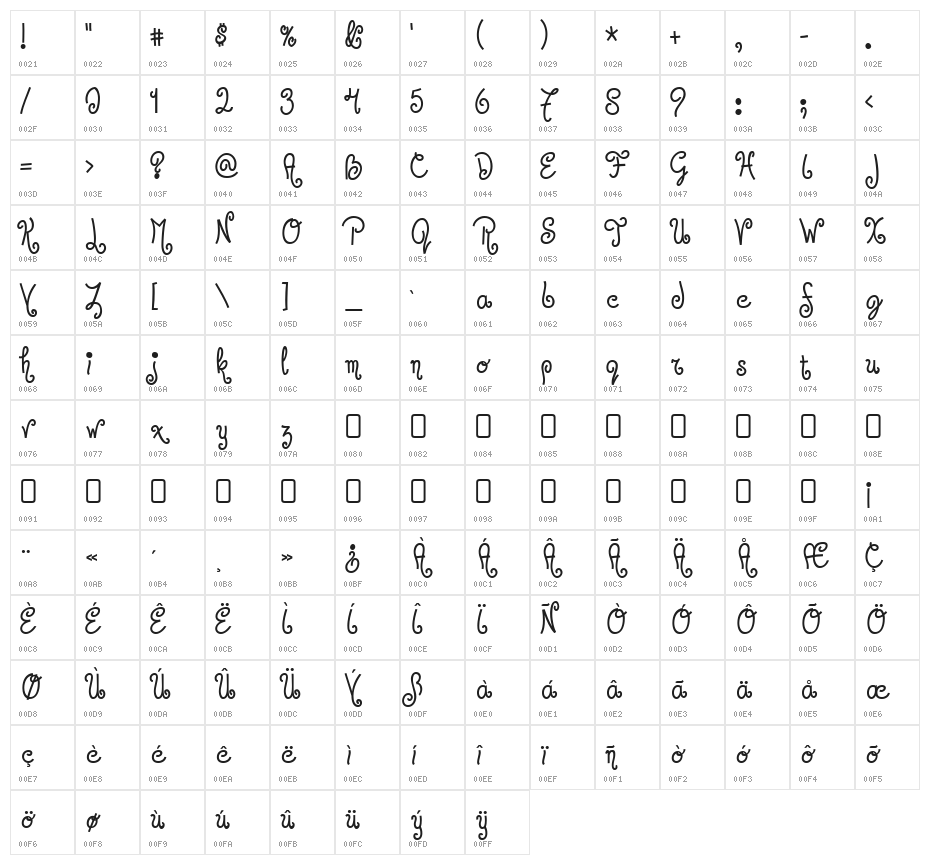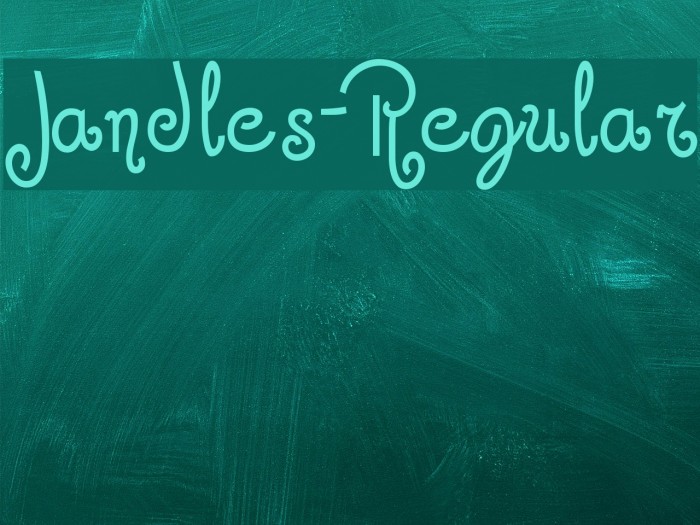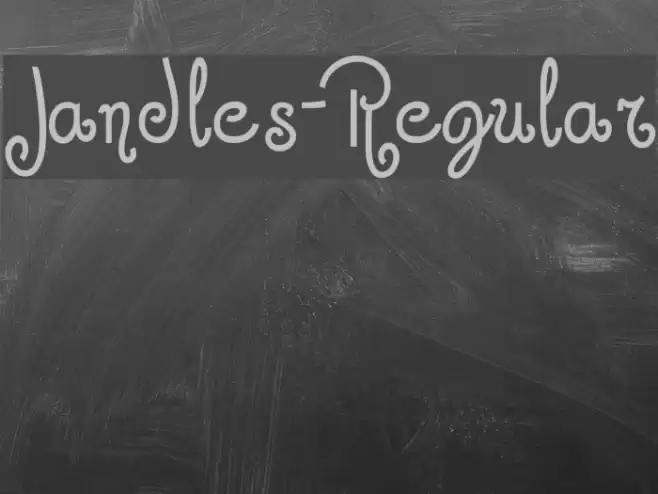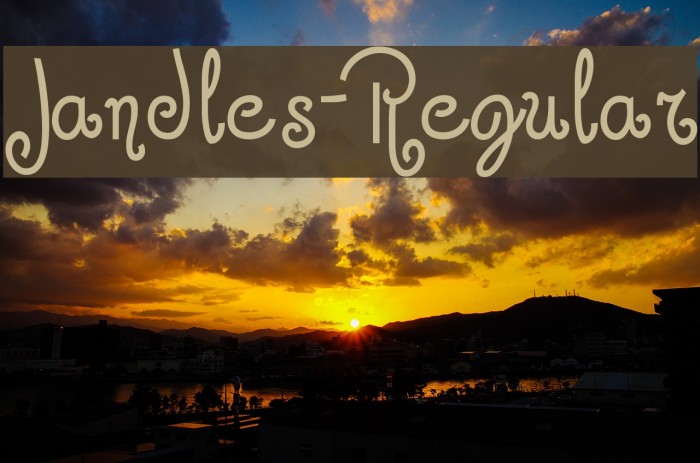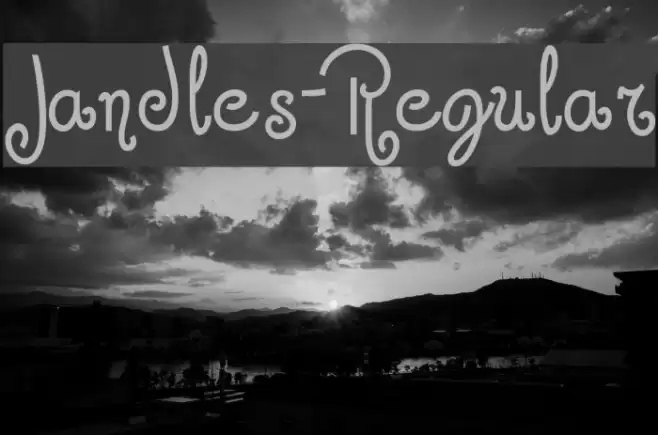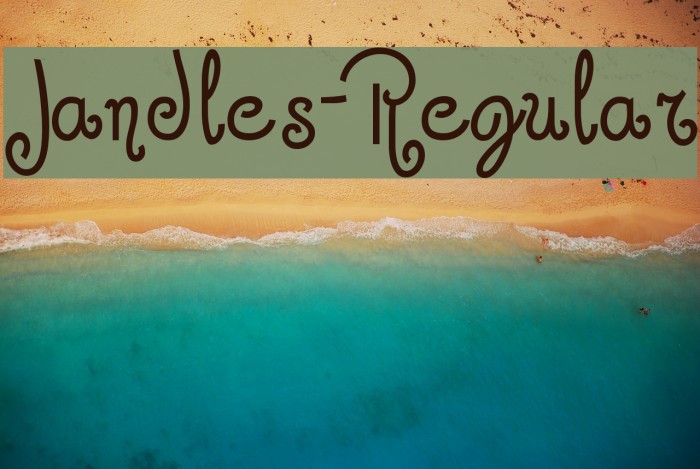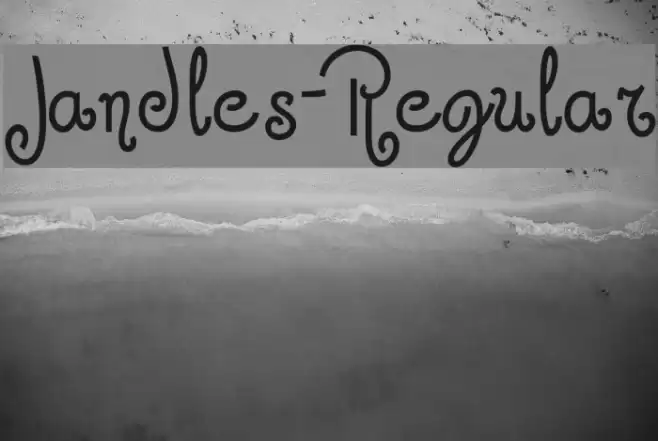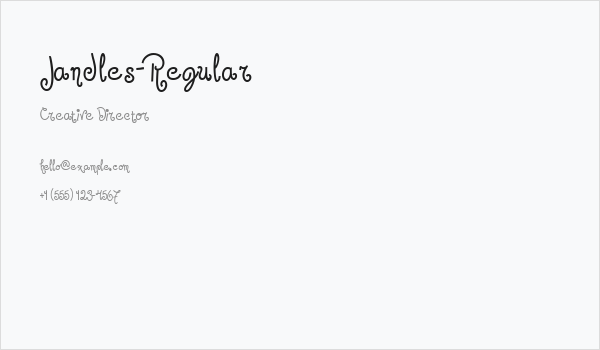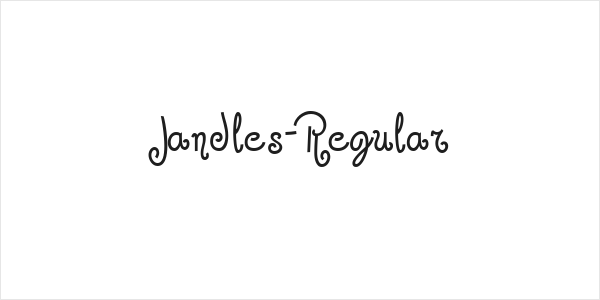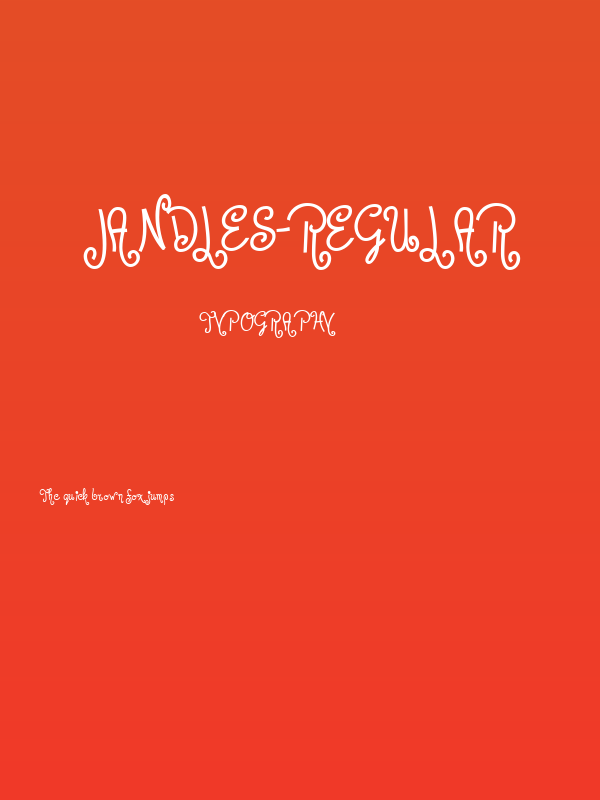
Jandles-Regular Font
Jandles-Regular Description
This font features a whimsical and playful design with a distinct decorative flair. Each character is adorned with unique curls and swirls, giving it a lively and artistic appearance. The uppercase letters are bold and expressive, while the lowercase letters maintain a consistent style with slightly more subtle embellishments. Numbers and special characters follow the same decorative theme, ensuring a cohesive look across all glyphs. The font's overall style is reminiscent of hand-drawn or calligraphic scripts, making it ideal for creative and informal applications.
| Proposed Projects | Ideal for greeting cards, invitations, children's books, and playful branding. |